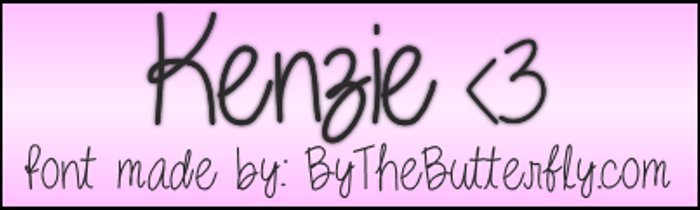
Kenzie Font
Kenzie Font is a Bubbly font and was created on . Kenzie Font has been downloaded 7,791 times, added to 210 collections, and liked 12 times.
@Spacini Your opinion is always welcomed, and it means so much to me that you like this. Amanda Rae was just used on a music video, and I saw some things I need to change, and I also planned on changing the F. Thank you SO MUCH!! You know your comments mean a lot to me. <3 Ness
@Spacini Just updated the F. Let me know what you think 😄
Yes! That new F works very well with the set. (The capital I is still gasping for breath.)
@Spacini The I looks fine, it's just ever so slightly too far over to the left.
@Nate547 Ya, I am updating it now 😄
The I has been moved ever so slightly to the right 😛
@Spacini I moved the I as much as I could to match set. Hope its at least a little better lol
This is a great improvement over your Amanda Rae set! The upper and lower case letters are very compatible with each other, even complimentary in most respects. I would challenge you to consider redesigning the upper case F; out of alphabetical context, I think it's difficult to recognize. The only other letter I see a problem with--and this is very minor--is the upper case I. It needs to breathe! Keep up your great designs.